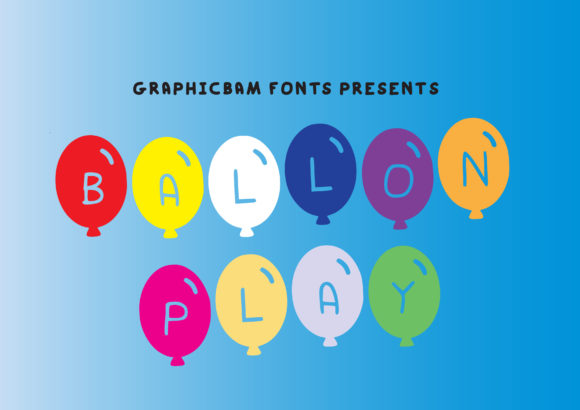
Introducing Balloon Play Font: The Perfect Addition to Your Creative Projects
Are you looking for a font that can add a touch of fun and playfulness to your creative projects? Look no further than the Balloon Play Font! This delightful font is designed to bring a sense of joy and excitement to your designs, making it perfect for a wide range of applications, from school projects to craft endeavors.
What is Balloon Play Font?
Balloon Play Font is a set of fun balloons with a playful, child-like font that’s perfect for spelling out anything related to colorful, bouncy balloons! The font is handwritten with rounded sides, giving it a friendly and joyful feel that’s sure to capture the imagination of your audience.
Key Features of Balloon Play Font
- Uppercase, numbers, and limited punctuation/symbols: The font includes uppercase letters, numbers, and a limited set of punctuation and symbols, giving you the flexibility to create a wide range of designs.
- Handwritten with rounded sides: The font’s handwritten design with rounded sides gives it a friendly and approachable feel that’s perfect for creative projects.
- Great for schools, home teaching, or craft projects: The Balloon Play Font is ideal for use in schools, home teaching, or craft projects, making it a versatile addition to your font collection.
Uses for Balloon Play Font
The Balloon Play Font is a versatile font that can be used in a wide range of creative projects, including:
- School projects: The font’s playful design makes it perfect for school projects, such as posters, presentations, and worksheets.
- Home teaching: The font is also great for home teaching, as it can add a fun and engaging touch to lesson plans and educational materials.
- Craft projects: The Balloon Play Font is ideal for craft projects, such as making cards, gift tags, and other paper crafts.
- Party decorations: The font’s colorful and playful design makes it perfect for party decorations, such as banners, signs, and invitations.
Tips for Using Balloon Play Font
Here are a few tips for using the Balloon Play Font in your creative projects:
- Use it with bright colors: The font’s playful design looks great with bright, bold colors, so don’t be afraid to experiment with different color schemes.
- Mix it with other fonts: The Balloon Play Font can be paired with other fonts to create a unique and interesting design.
- Use it for headings and titles: The font’s bold and playful design makes it perfect for headings and titles, adding a touch of fun and excitement to your designs.
The Balloon Play Font is a fun and playful font that’s perfect for adding a touch of excitement and joy to your creative projects. With its handwritten design, rounded sides, and bold and colorful feel, it’s ideal for a wide range of applications, from school projects to craft endeavors. So why not give it a try and see how it can add a touch of fun and playfulness to your designs?